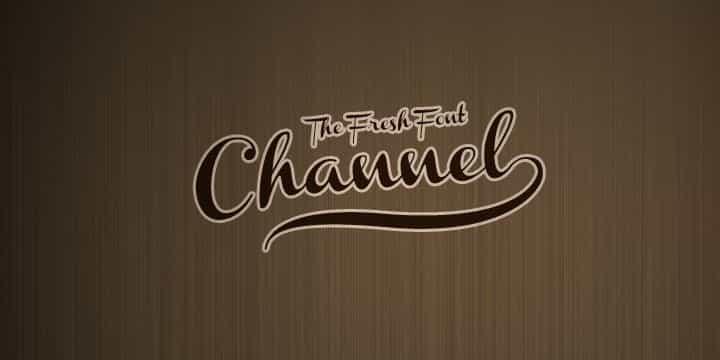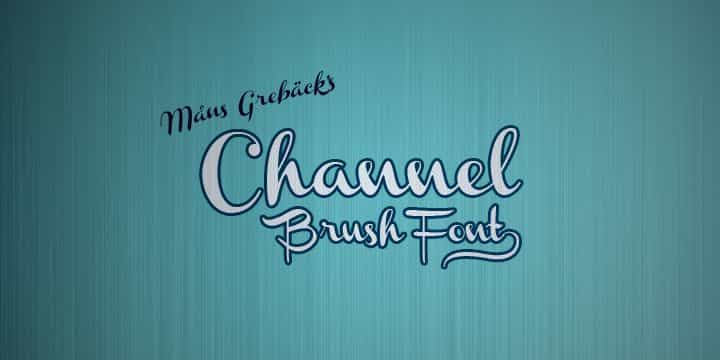
Channel is a Script font also designed by Måns Grebäck for free personal use. This font offers a range of uppercase and lowercase letters well as some special characters.